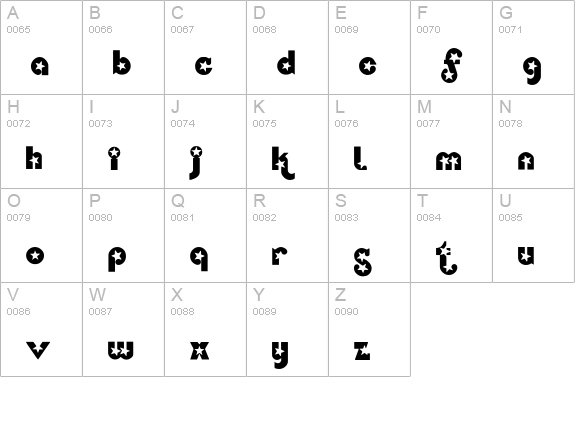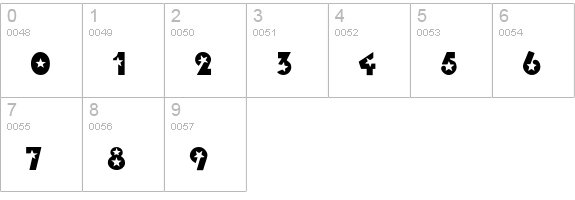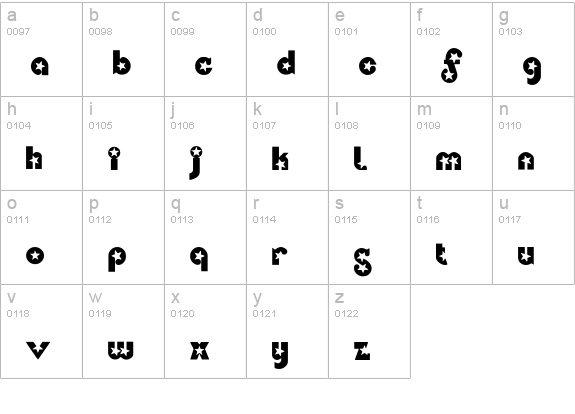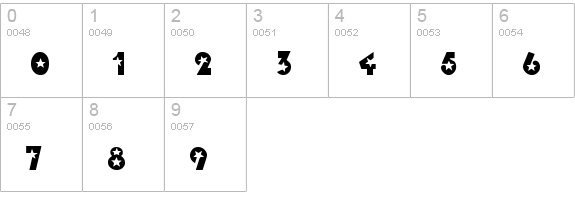
Independance Font Details
Independance font is a magnificent display typeface that exudes a sense of freedom and individuality. With its bold and distinctive letterforms, this font is perfect for making a statement and capturing attention. Each character is meticulously crafted to create a unique and powerful visual impact. This font is not only aesthetically pleasing but also embodies the spirit of independence. It represents the courage to break free from conformity and embrace one's true self. The strong and assertive nature of the Independance font makes it an ideal choice for various design projects, including logos, headlines, posters, and more. One of the best things about Independance font is that it is freely available for download at FontsMarket.com. This means that anyone can access and utilize this exceptional typeface without any cost. Whether you are a professional designer or a casual enthusiast, this font allows you to unleash your creativity without any constraints. Each character in the Independance font is meticulously designed to ensure legibility and readability. The clean lines and balanced proportions make it easy to read, even at smaller sizes. This makes it versatile and suitable for a wide range of applications, from print to digital media. So, if you are looking for a font that embodies the essence of freedom and individuality, look no further than Independance font. Download it today from FontsMarket.com and let your designs soar to new heights. Embrace the power of independence and make a bold statement with this remarkable typeface.